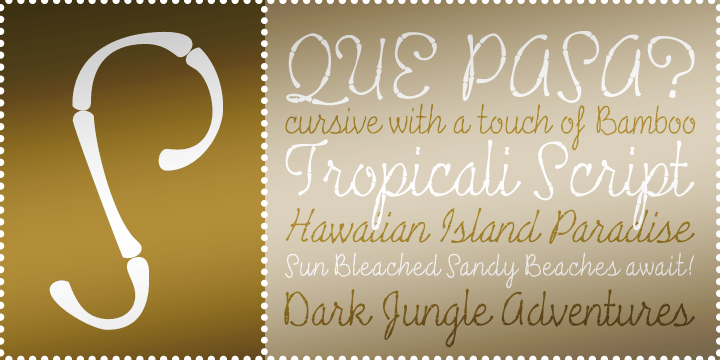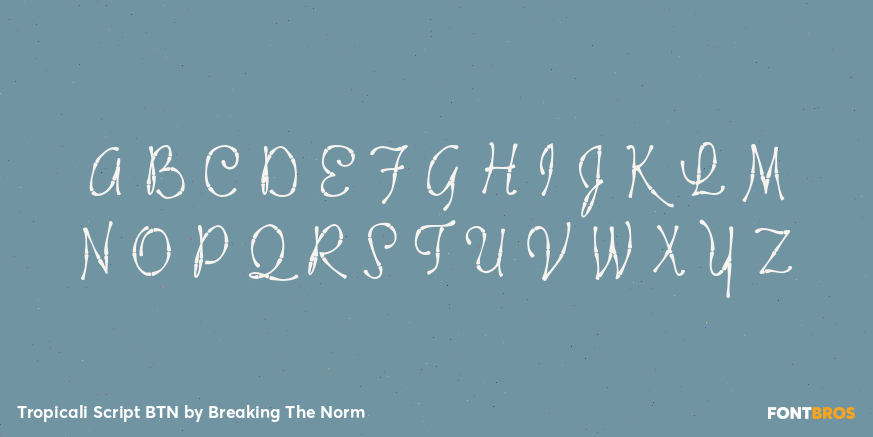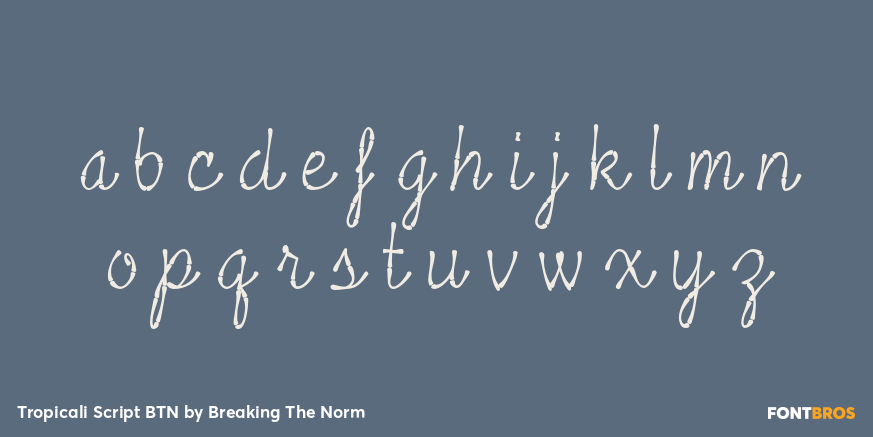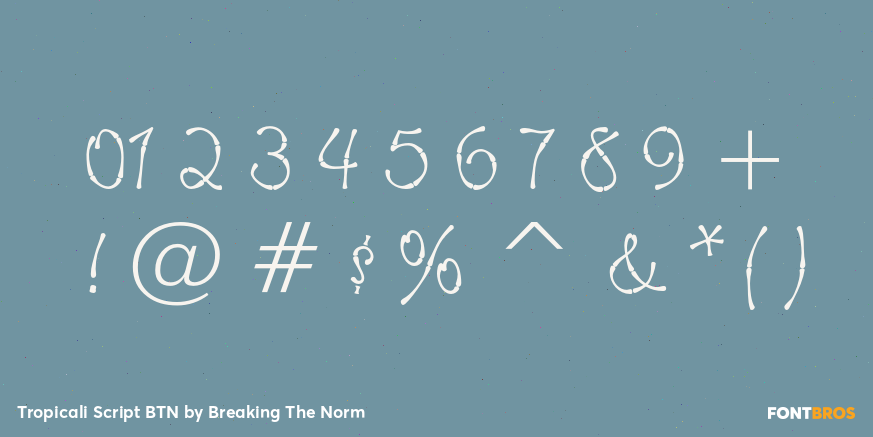
Tropicali Script BTN
Font Family by Breaking The Norm
Tropicali Script BTN is a tropical display script built from bamboo-inspired forms, giving it a breezy island personality with a distinctive handcrafted twist. Its unusual construction brings a warm vacation flavor to the page, making it a strong fit for tiki graphics, beach promotions, resort branding, restaurant design, packaging, signage, and summer-themed posters. The Bamboo and Bamboo Italic styles provide a more structured tropical look, while the Rough companion adds a looser handwritten feel for more casual display work. Tropicali Script BTN is a lively choice for designs that want to feel relaxed, playful, and unmistakably tropical.